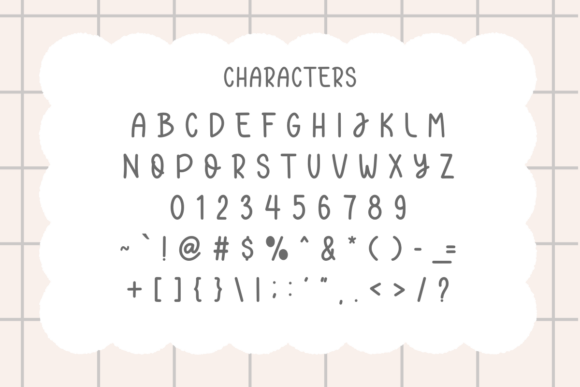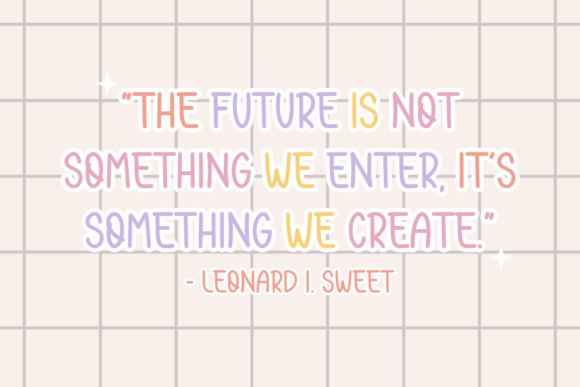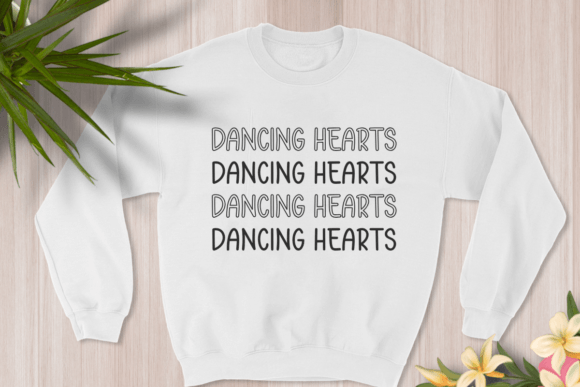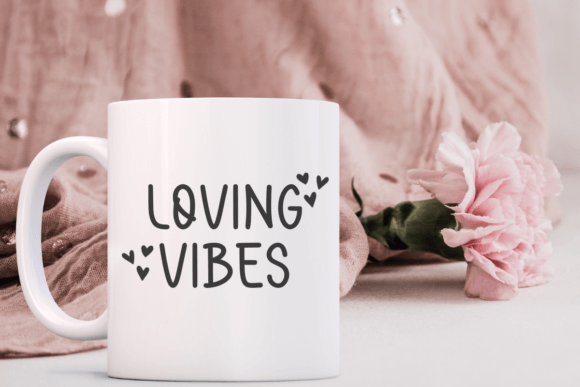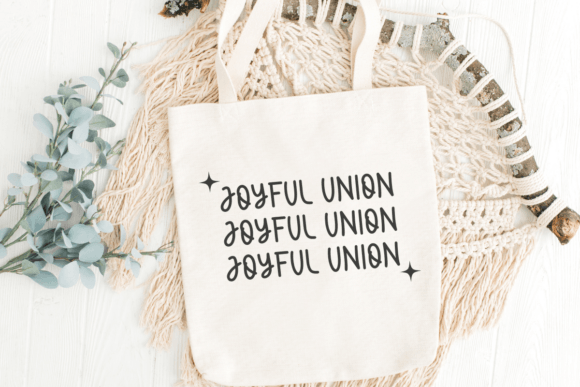
Introduction to Love Party Font
Do you remember the moment when you stumble upon the perfect font for your creative project? For some, it’s like finding a missing puzzle piece – everything falls into place, and the project suddenly becomes more vibrant and engaging. That’s what happens when you discover the Love Party Font, a delightful handwritten sans serif font that’s sure to bring a smile to your face.
Whether you’re a seasoned designer or a crafty enthusiast, the Love Party Font is a valuable addition to your design resource library. Its playful and whimsical style makes it perfect for a wide range of applications, from digital designs to greeting cards and presentations. And the best part? It’s available for free download, so you can experiment with it without breaking the bank.
With its high-quality design and transparent background, the Love Party Font is a game-changer for designers who want to add a touch of personality to their projects. Its versatility and charm make it an ideal choice for any creative endeavor, and we’re excited to share its magic with you.
Key Features of Love Party Font
- High-quality design resource perfect for creative projects, including invitations, posters, and more.
- Unique, hand-drawn style with a transparent background, allowing for seamless integration into any design project.
- Includes a range of glyphs and characters, making it a versatile design resource for various creative projects.
- Perfect for designers looking for a unique and eye-catching font to add a touch of personality to their creative project.
Honest Review: Love Party Font
As a designer, I’m always on the lookout for high-quality design resources to enhance my creative projects. Recently, I stumbled upon the Love Party Font, and I must say, it’s a great find. The free download is a huge plus, making it an excellent addition to any design arsenal.
- ✨ The font’s playful and whimsical nature is perfect for creating eye-catching graphics and headings.
- ✨ The transparent background makes it easy to customize and combine with other design elements.
- ✨ The high-quality design ensures that the font looks great on both digital and print materials.
- ⚠️ The font may not be suitable for more formal or professional projects due to its playful nature.
- ⚠️ Some users may find the font’s style a bit too busy or overwhelming.
Overall, I’m impressed with the Love Party Font. It’s a fun and versatile design resource that can add a touch of personality to any creative project. While it may not be suitable for every project, it’s definitely worth adding to your design library.
Experiment with different font sizes and colors to get the most out of the Love Party Font. Combine it with other design resources to create a cohesive and visually appealing design. Use it to add a touch of whimsy and fun to your creative project.
The Love Party Font is perfect for creative projects such as wedding invitations, birthday parties, and social media campaigns. Use it to create eye-catching graphics, social media posts, and promotional materials that stand out from the crowd.